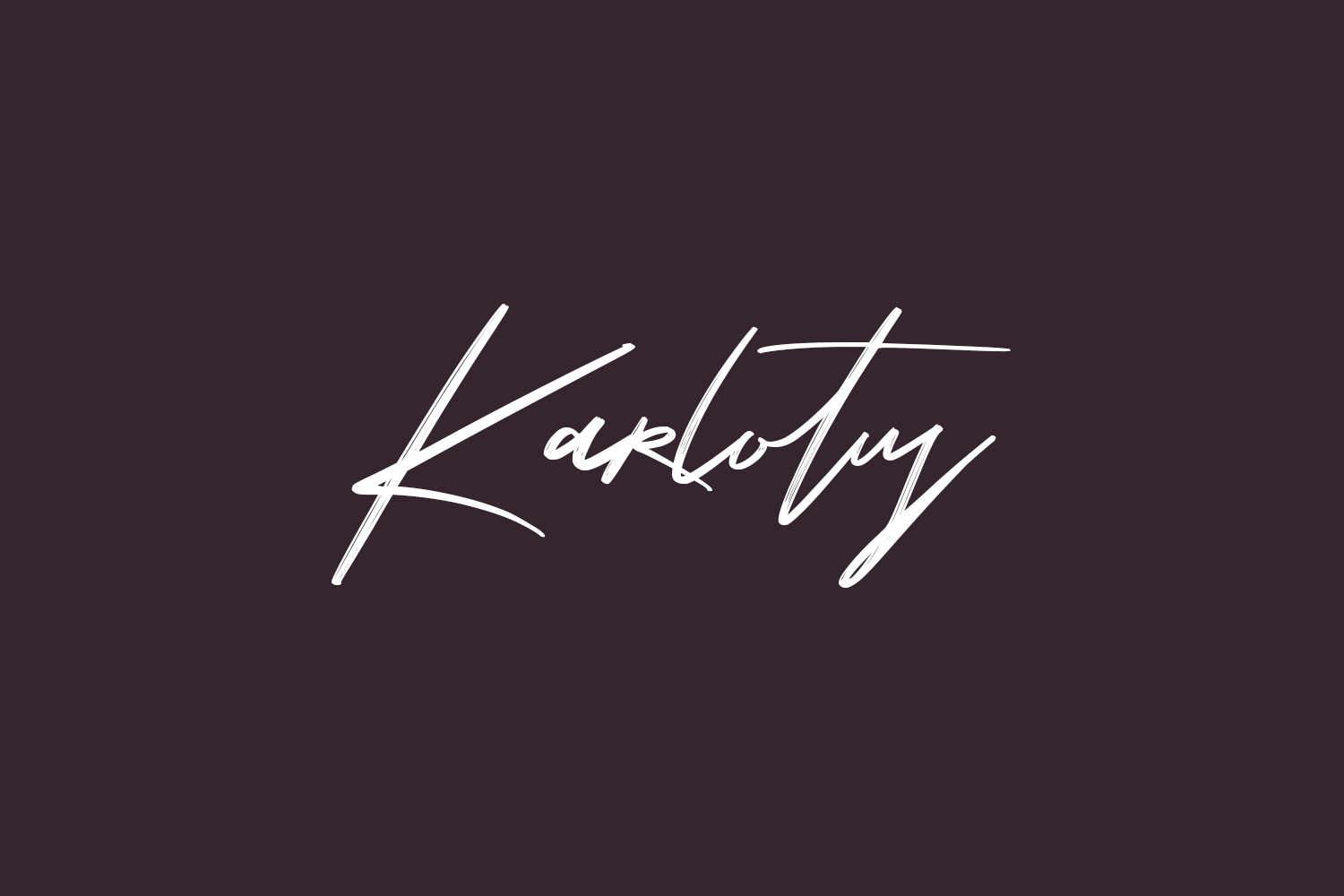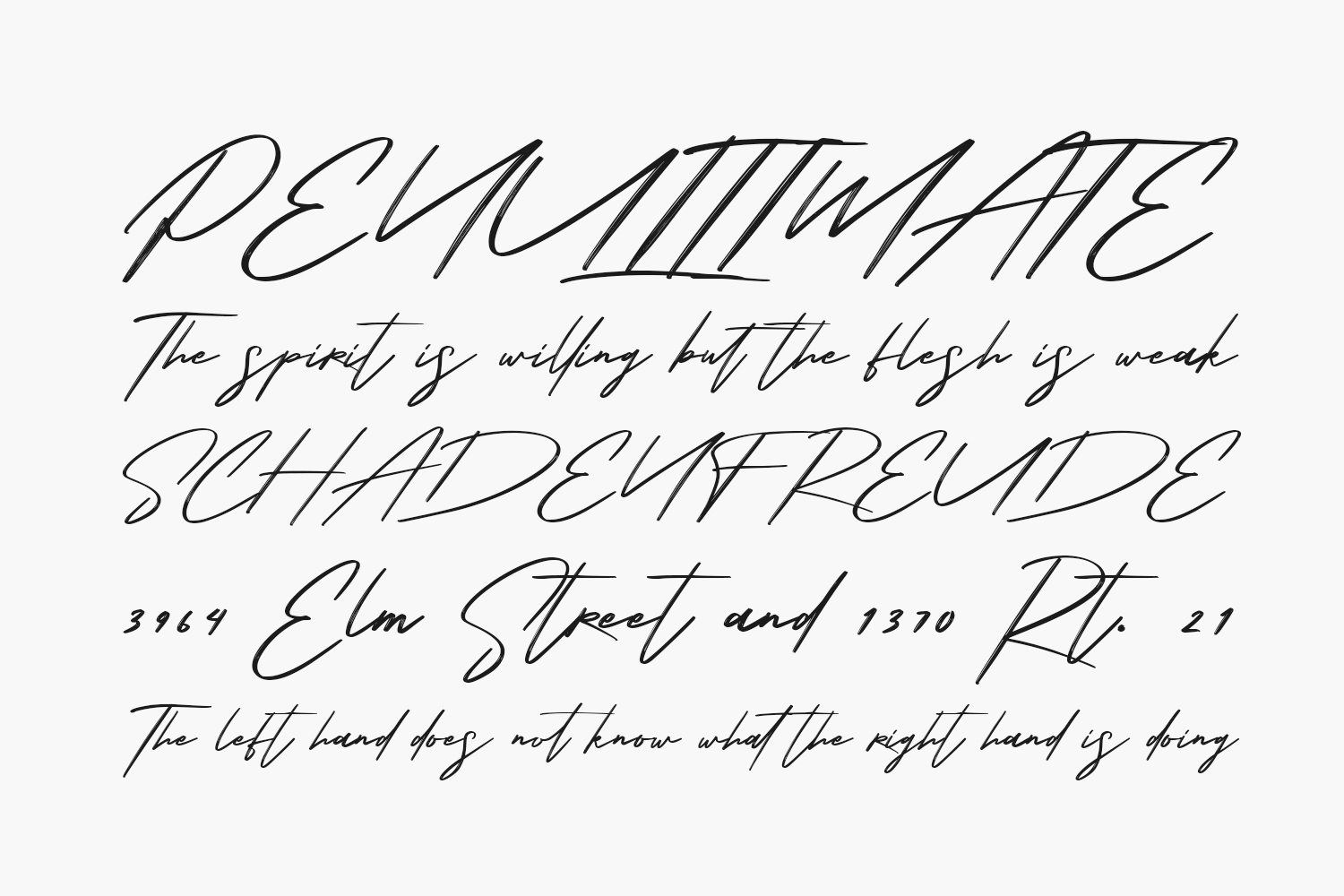
Karlotus Free Font is a thin-lettered and graceful script font. Fall for its ravishing style and use it to create gorgeous wedding invitations, beautiful stationary art, eye-catching social media posts, and much more.